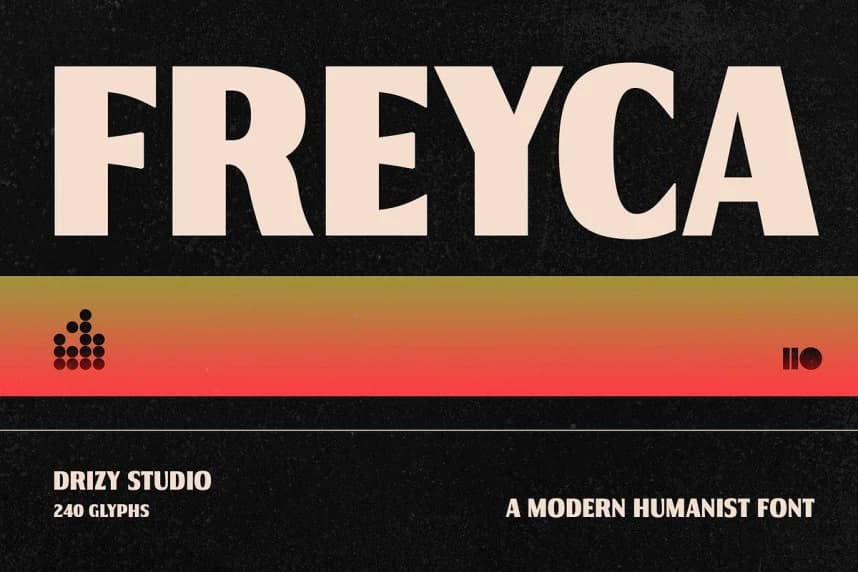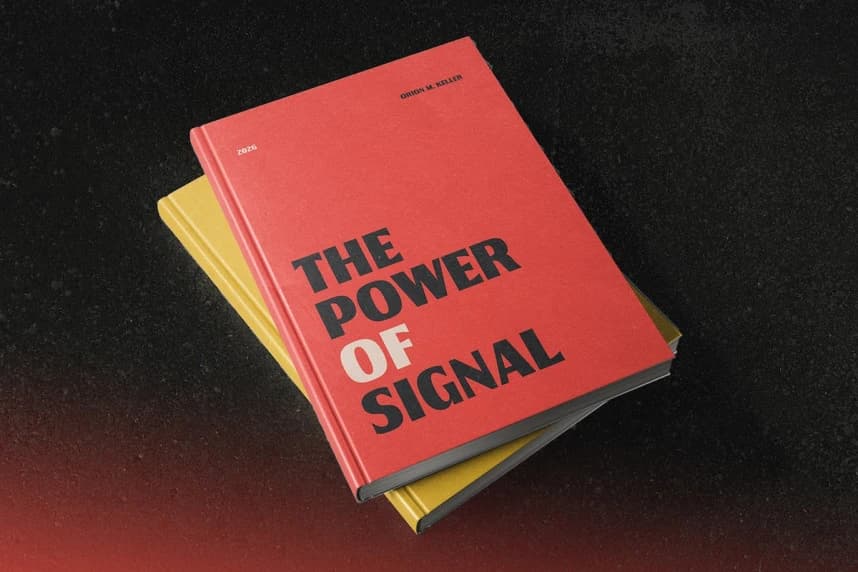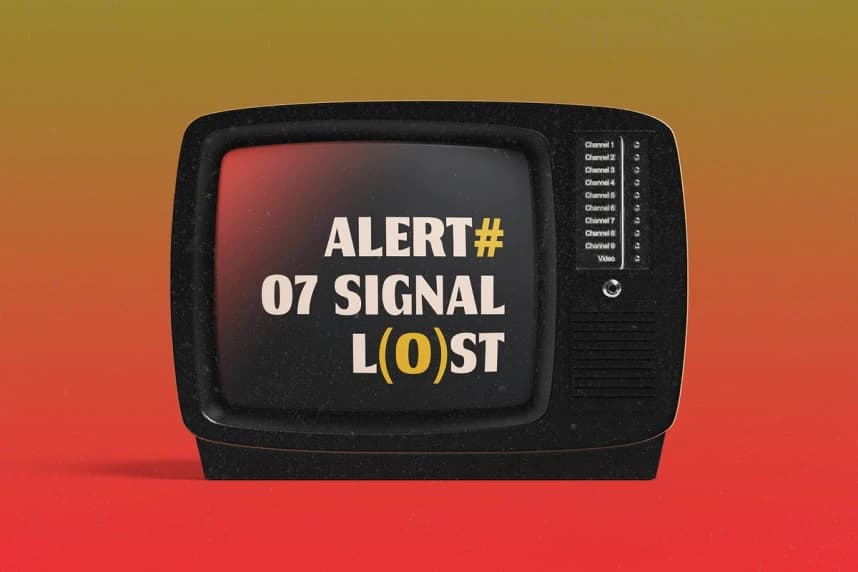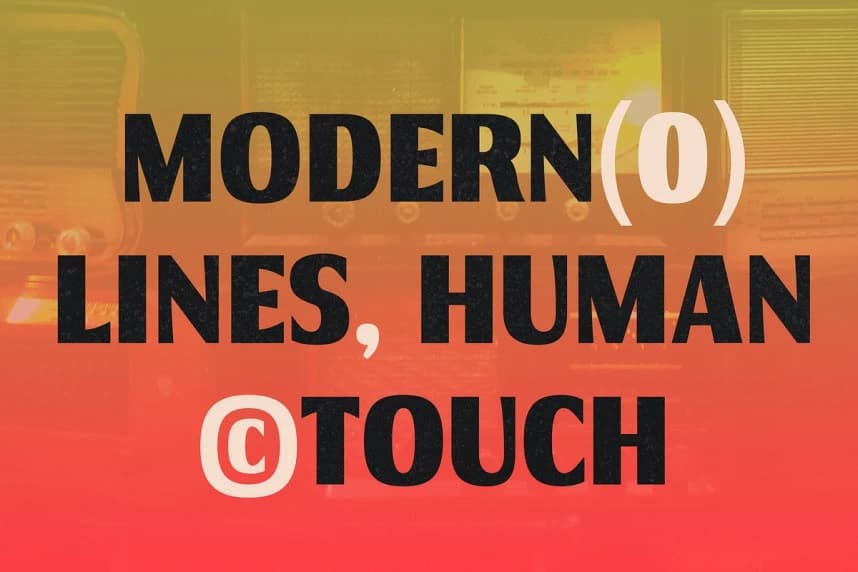
Freyca Font
Freyca Font is a modern humanist typeface that blends clean geometry with the warmth of natural handwriting. Designed with balanced proportions and subtle curves, it delivers a friendly yet professional tone—perfect for branding, editorial design